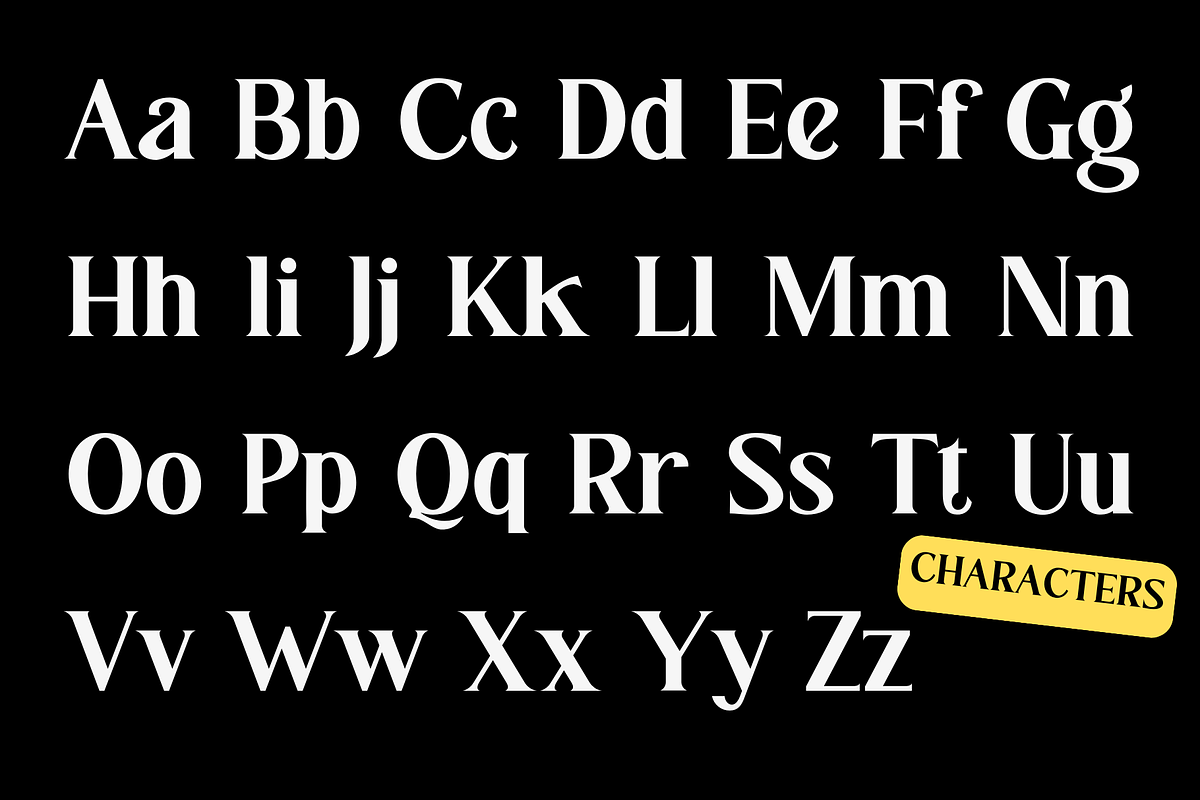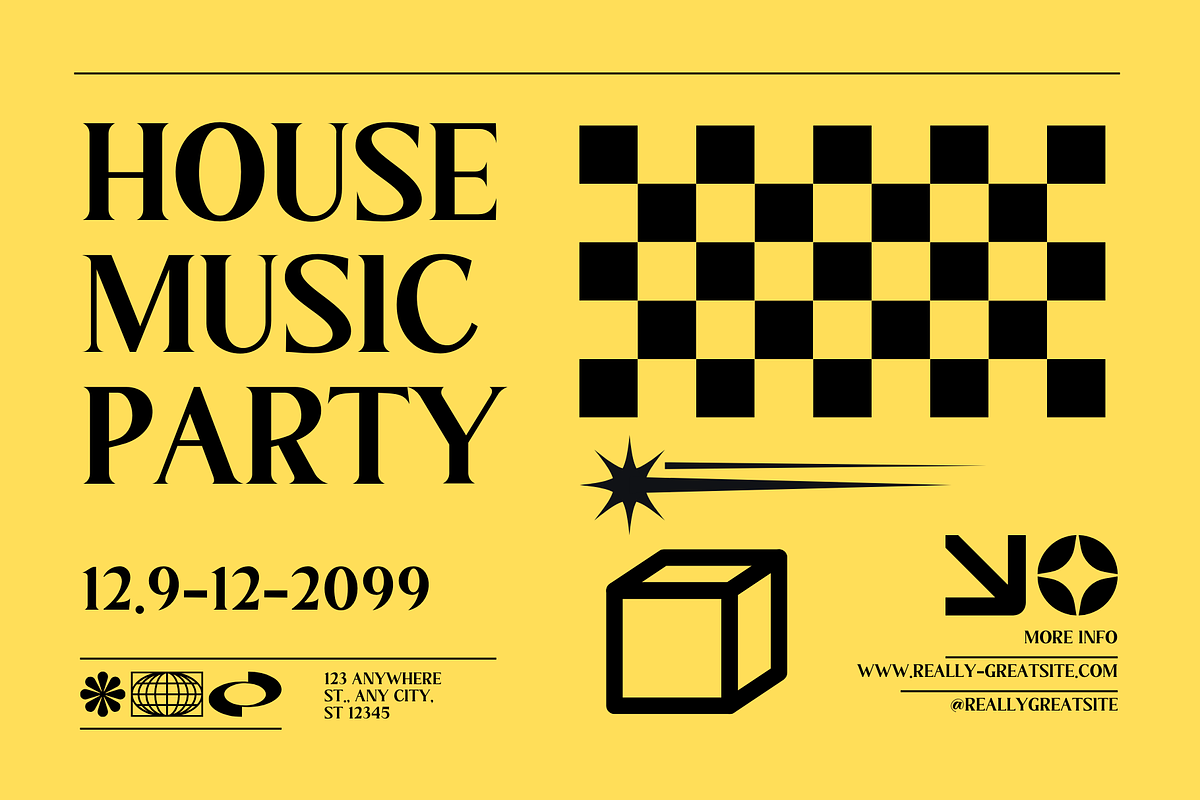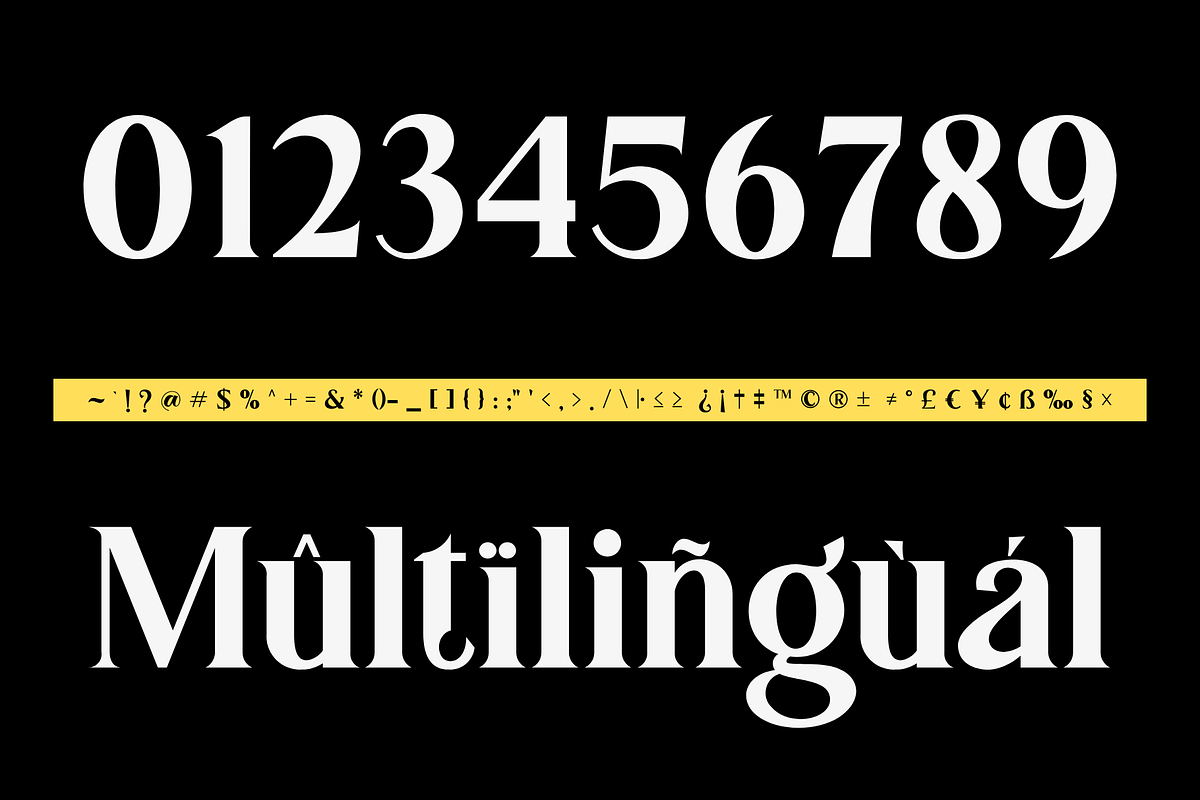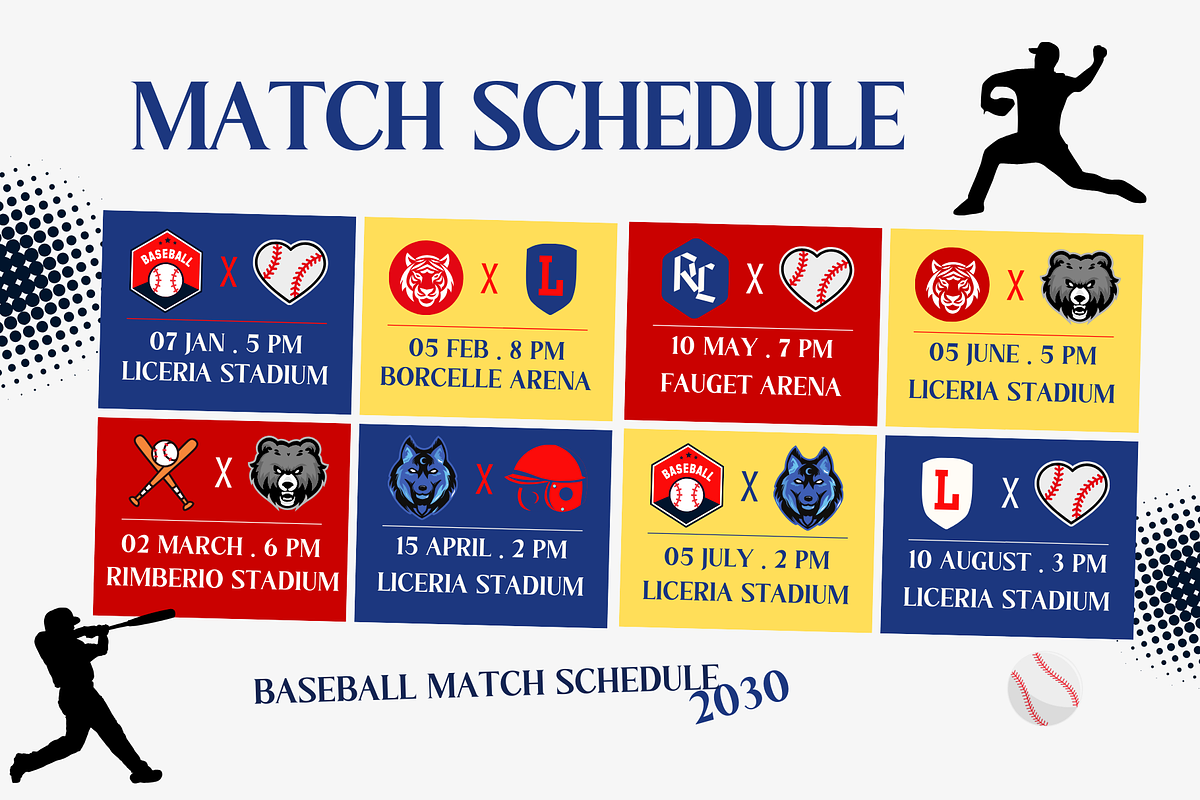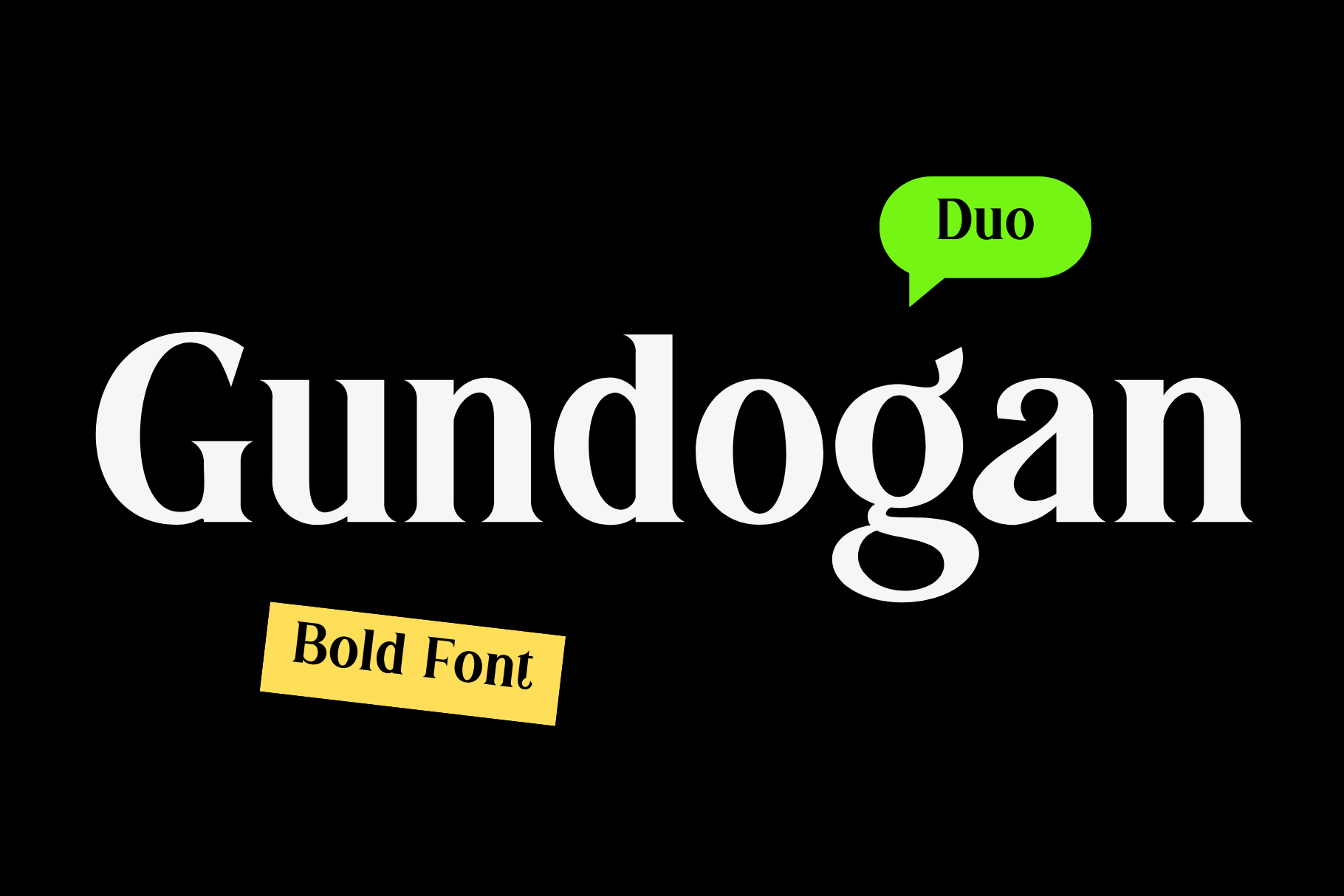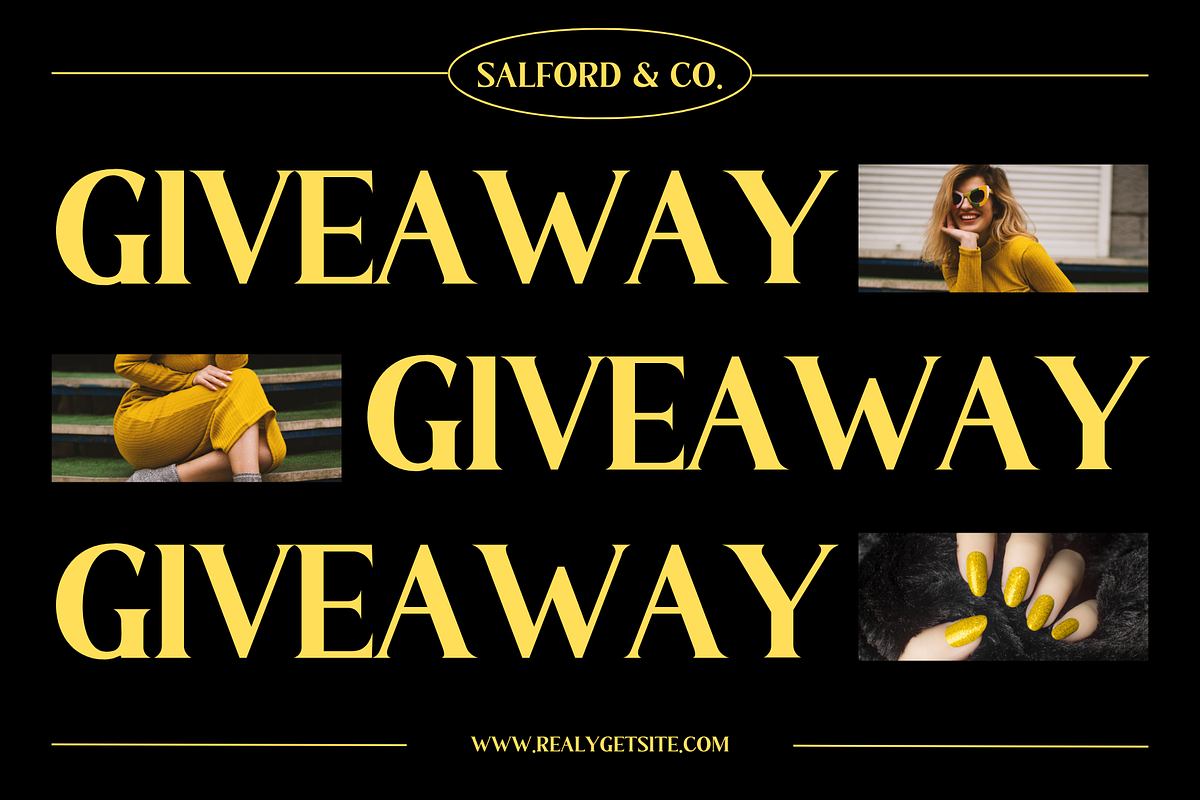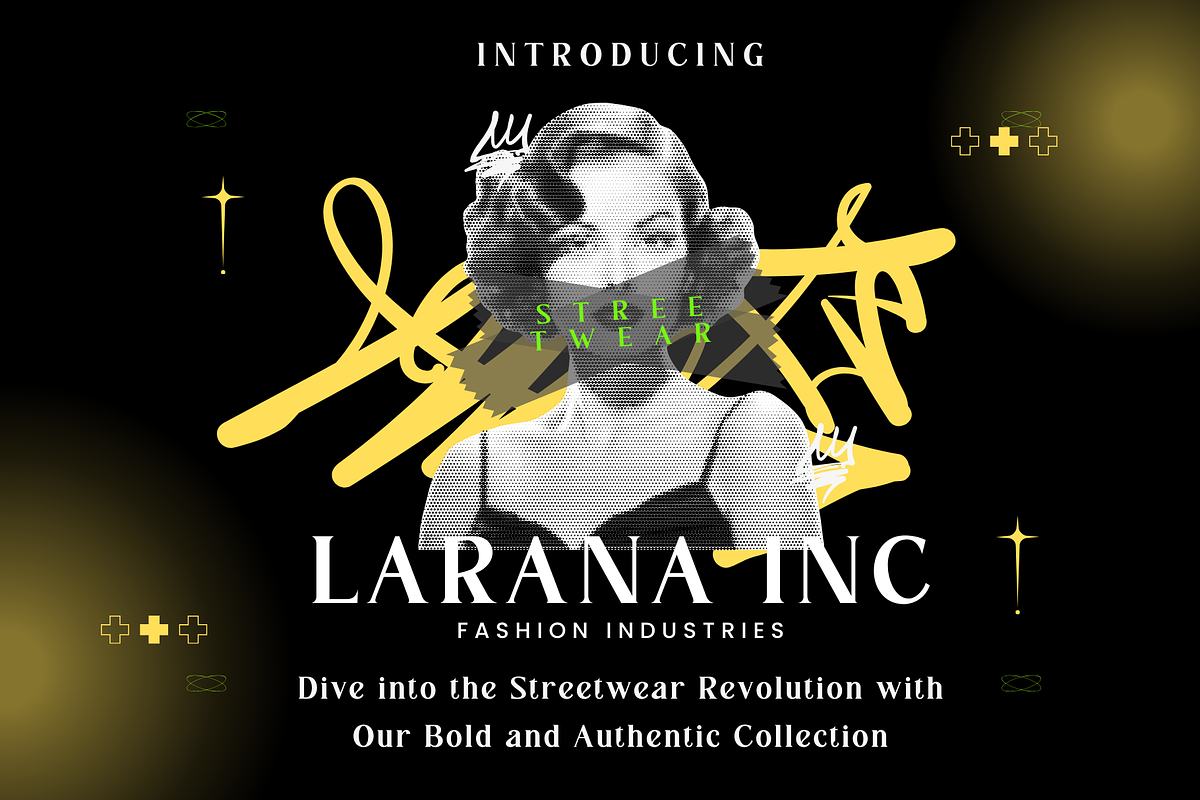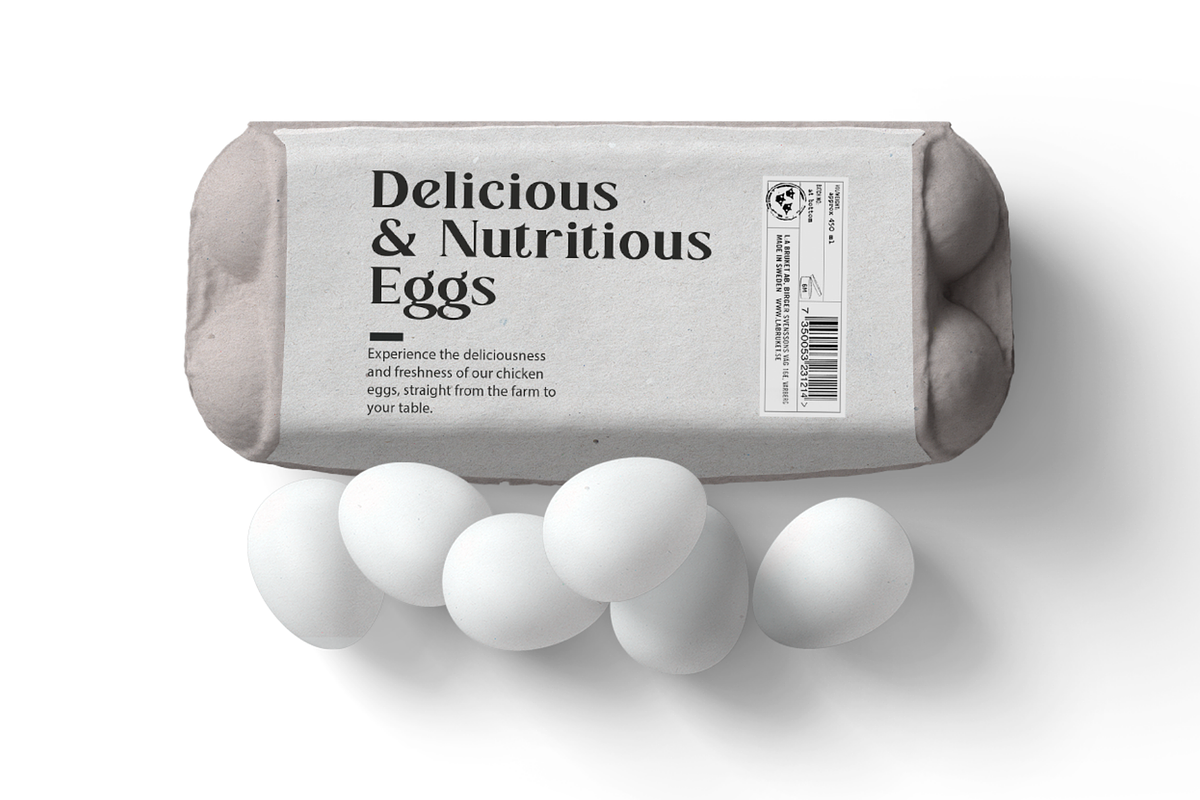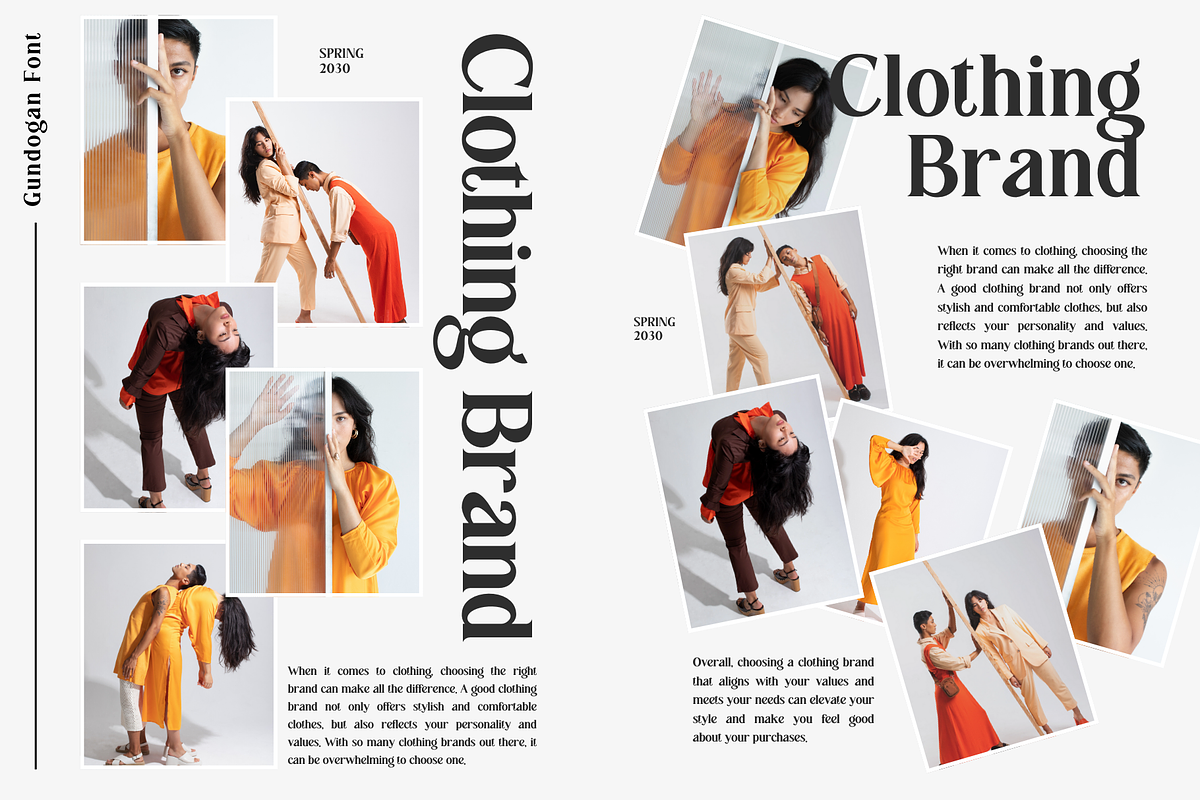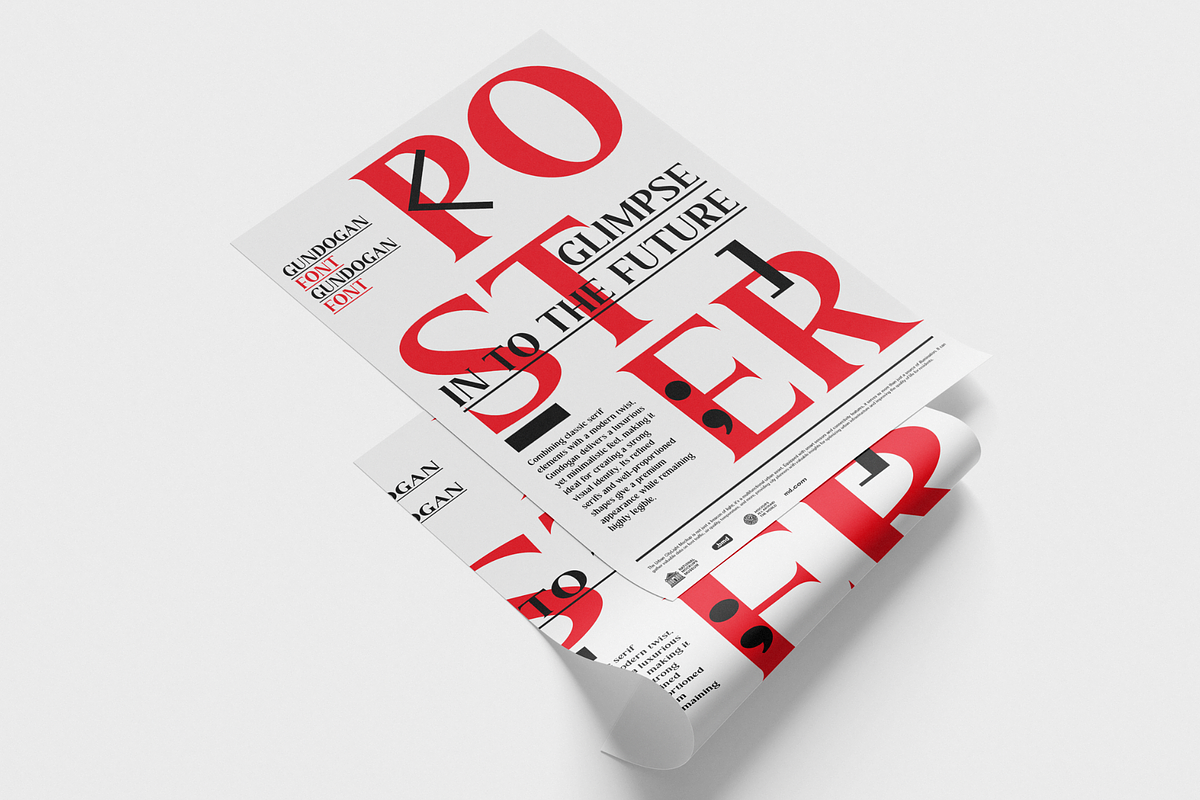
Gundogan | Serif Font
Gundogan is a bold modern serif font that brings an elegant, strong, and professional look to any design project. With its thick, sharp, and distinctive letterforms, Gundogan is perfect for a wide range of design needs — from logos, branding, posters, book covers, product packaging, to editorial designs.
Combining classic serif elements with a modern twist, Gundogan delivers a luxurious yet minimalistic feel, making it ideal for creating a strong visual identity. Its refined serifs and well-proportioned shapes give a premium appearance while remaining highly legible.
- Bold Modern Serif Font
- Perfect for Logos, Branding, Posters, and Editorial Use
- Elegant, Luxurious, and Strong Personality
- Well-balanced and Easy-to-Read Letterforms
Make your designs stand out with the timeless elegance of Gundogan!